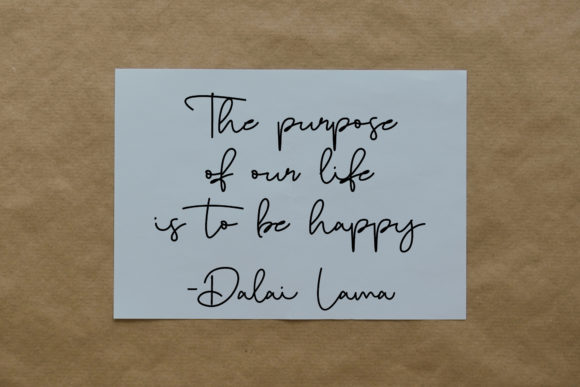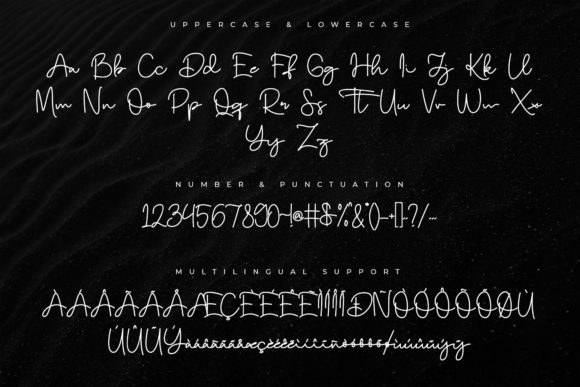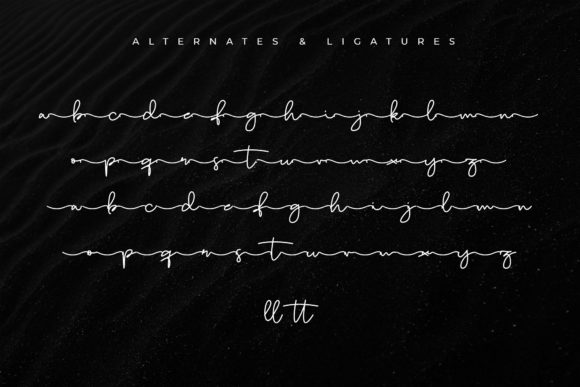
The Designer’s Delight: A Deep Dive into Dailymunt Font
I’ll never forget the time I was working on a project for a client who needed a custom greeting card design. I had all the elements in place – the graphics, the layout, the colors – but something was missing. That’s when I realized I needed the perfect font to bring it all together. After hours of scouring the internet, I stumbled upon Dailymunt Font, and it was love at first sight! 💕
Dailymunt is a fashionable and delightful script font that has become a staple in my design toolkit. It looks radiant on quotes, greeting cards, logos, business cards, and every other design that needs a personalized touch. In this article, I’ll share my honest review of Dailymunt, provide a practical guide on how to use it, and explore similar fonts that you might love.
Honest Review: What I Love and What I Don’t
The Good ✨
- 💫 Elegant and flowing script that adds a touch of sophistication to any design
- 🎨 Versatile and works well with a variety of design styles
- 📚 Includes a range of OpenType features, glyphs, and stylistic alternates
The Not-So-Good 🤔
- ⚠️ Limited use of uppercase letters, which can make it less suitable for certain designs
- 🤔 Some users may find the font a bit too ornate or over-the-top for certain projects
Dailymunt Font was designed with the intention of creating a beautiful, elegant script font that would add a touch of sophistication to any design. The designer drew inspiration from classic calligraphy and modern typography to create a font that’s both timeless and trendy.
| What is Dailymunt Font? | Dailymunt Font is a fashionable and delightful script font designed for creative projects. |